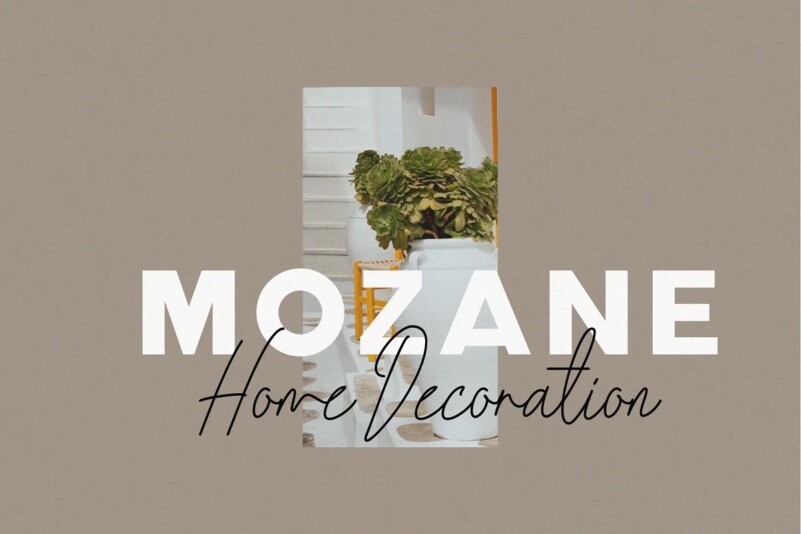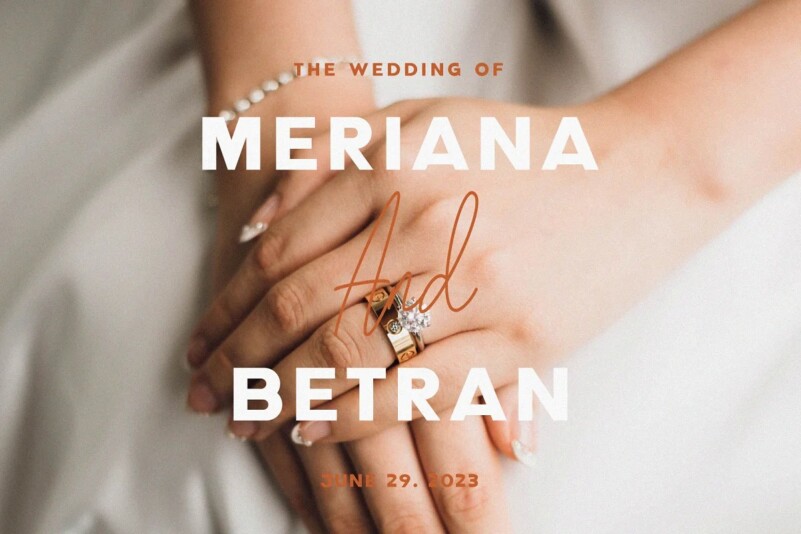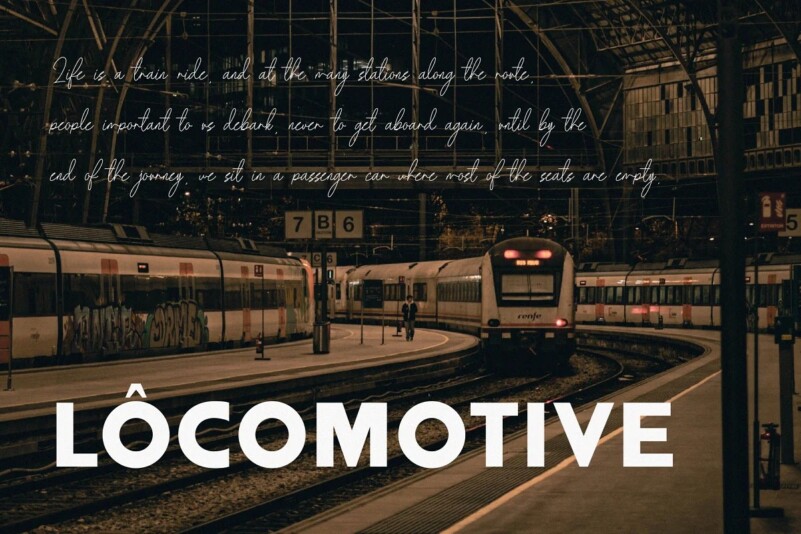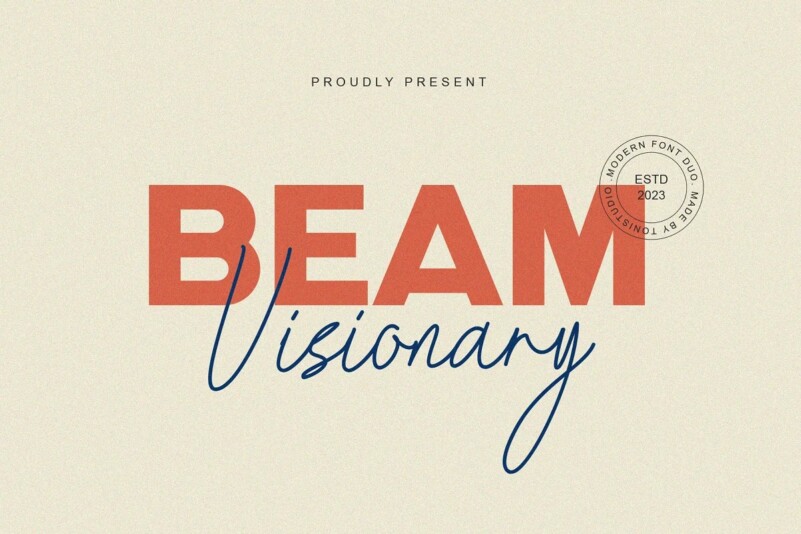
Beam Visionary Font
Beam Visionary Font inspired by the famous minimalist logo. Made from font designer named ToniStudio. This is a duo of bold and soft typographic, sans serif fonts combined with signature script flow so they can provide a beautiful and eye-catching mix in logos, posters, wedding invitations, blog posts, social media, and more.!